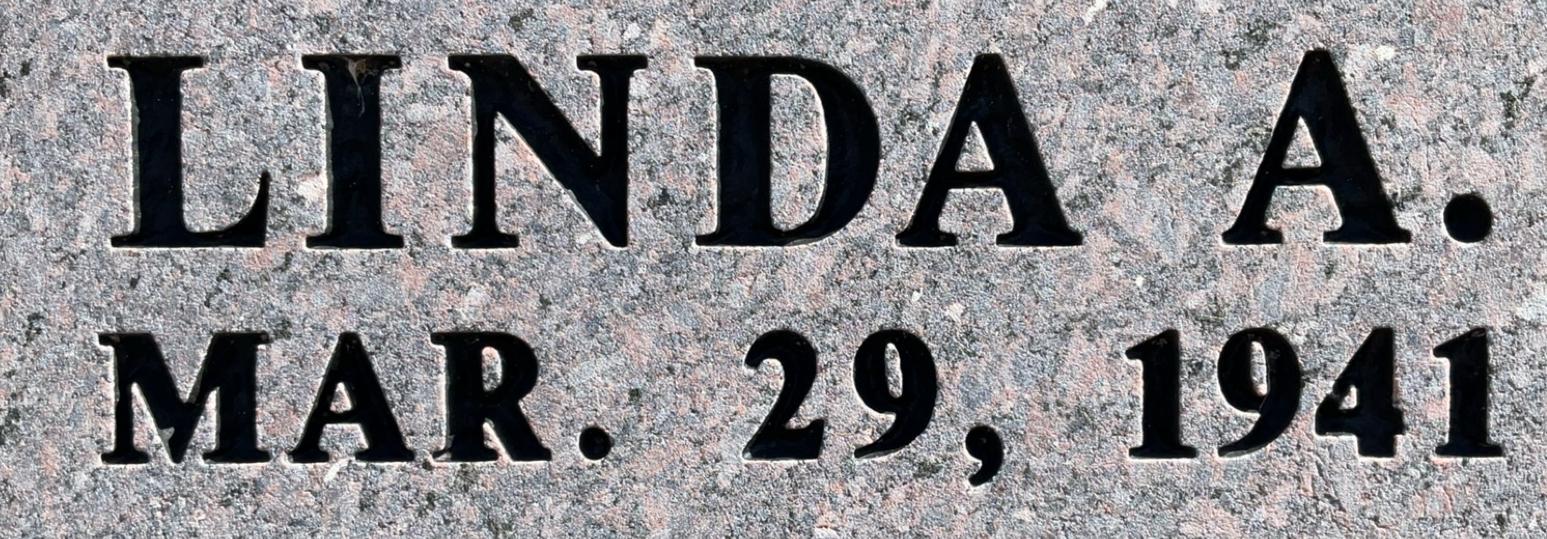
Font Identification
Does anyone know the name of this font? I need to blast it tomorrow but can’t find a good match.
This is a version of Times New Roman Bold, likely with a stroke/outline added in a design software for extra thickness.